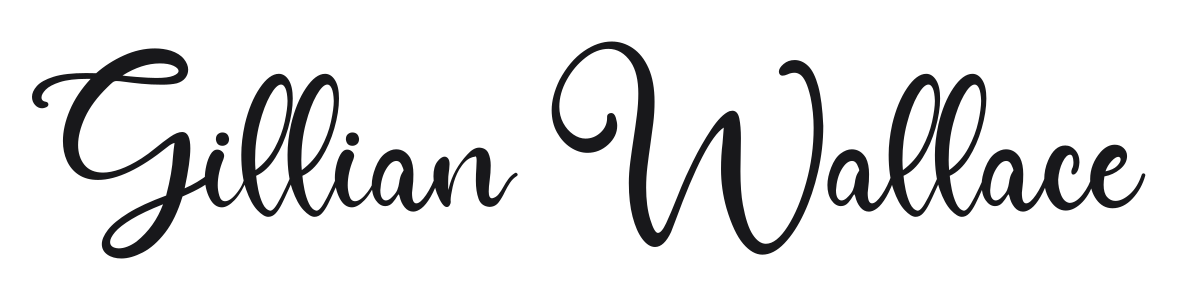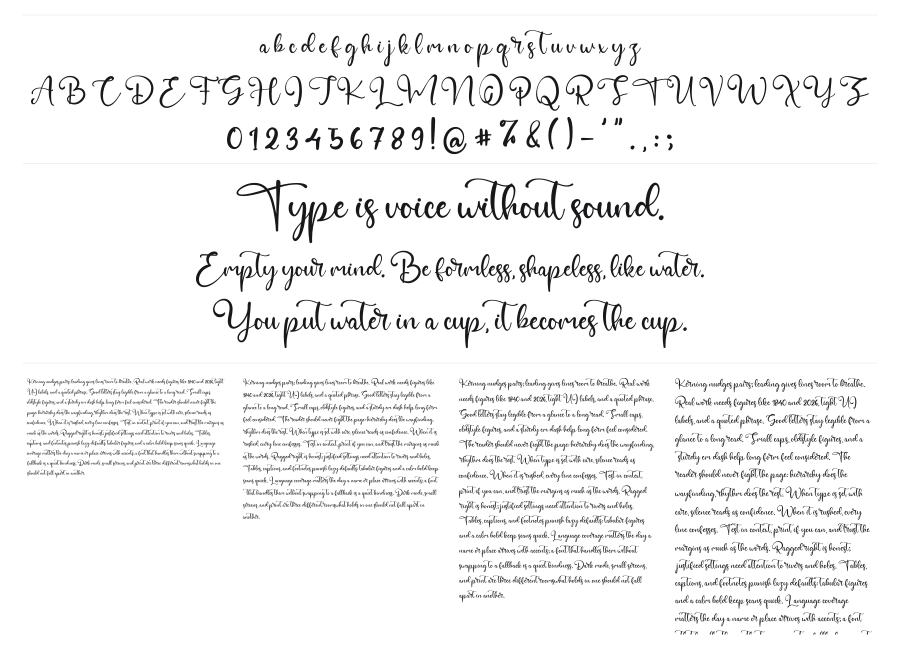
Gillian Wallace
Gillian Wallace is a contemporary brush script with bouncy energy and strong thick-to-thin stroke contrast. The connected, flowing letters have a natural hand-lettered quality, with sweeping loops and an informal baseline that keeps everything feeling lively. It works well for branding, packaging, and anything that wants a personal, handcrafted touch.